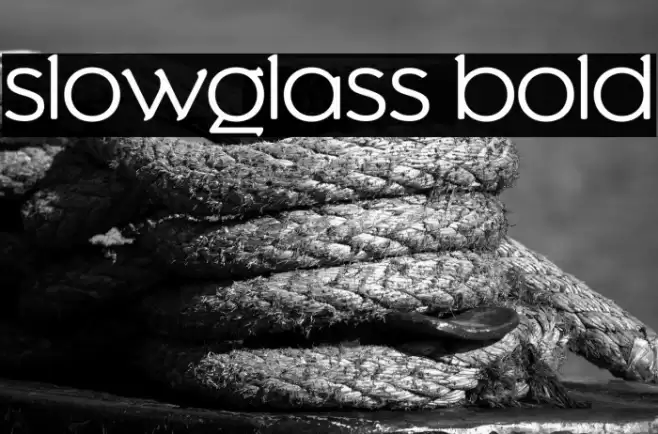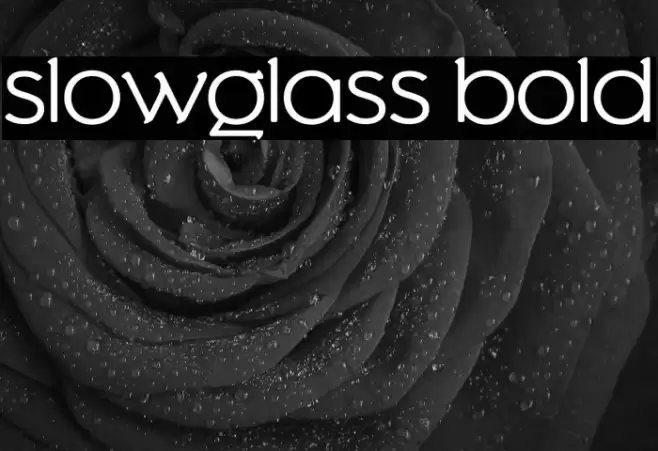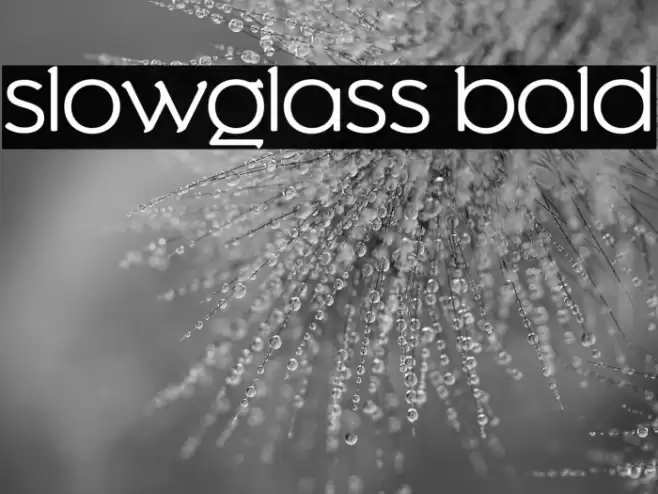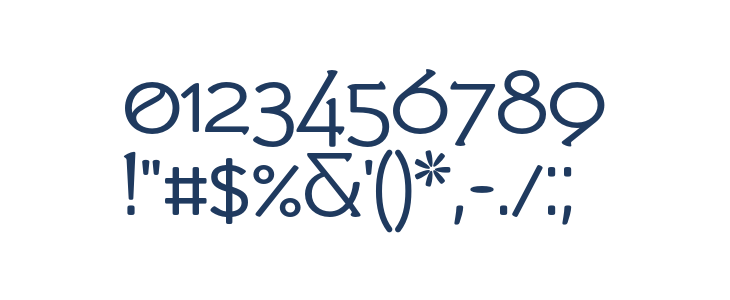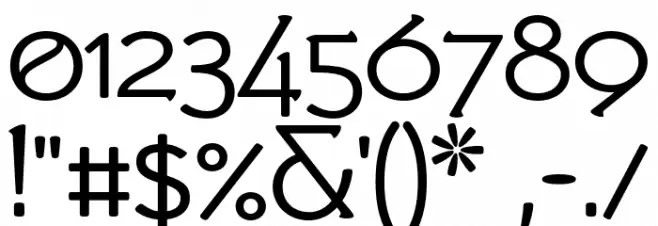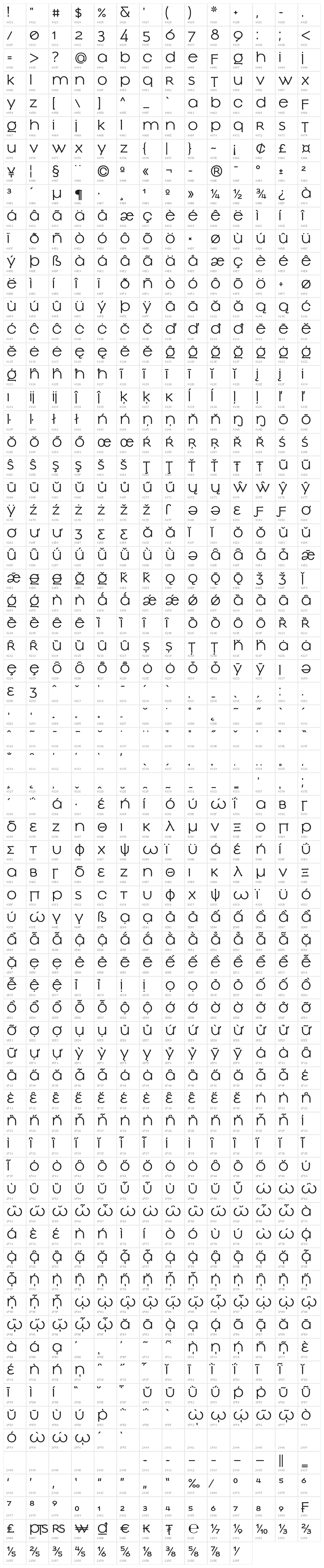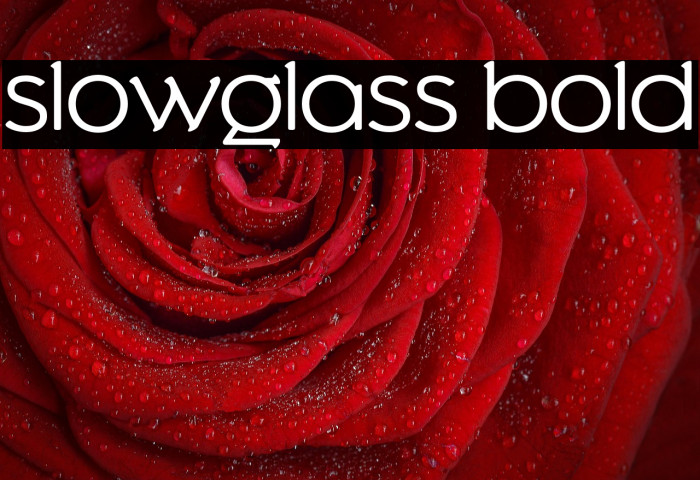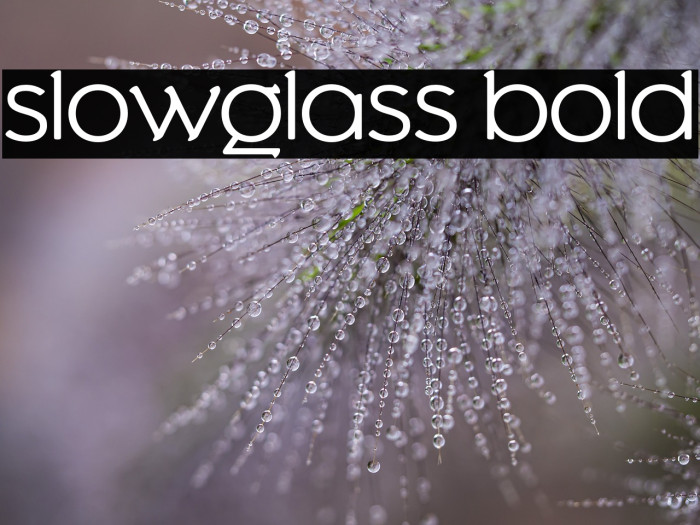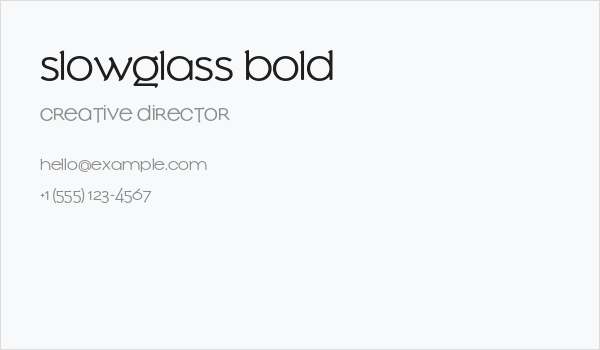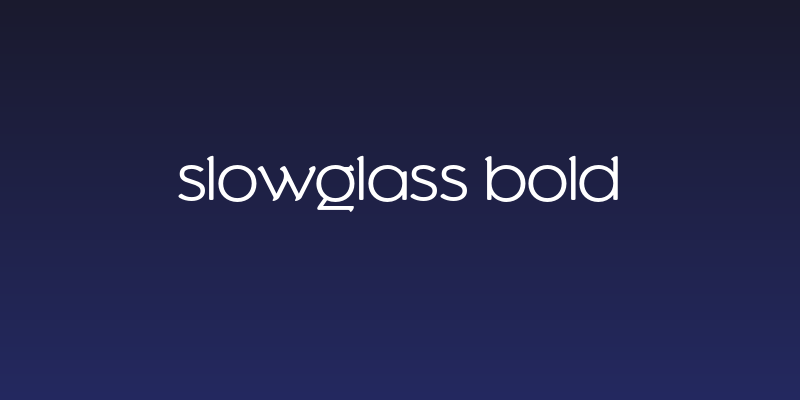
Slowglass Bold Font
Slowglass Bold Description
This font features a unique and modern design with a geometric and slightly futuristic aesthetic. The characters are rounded and smooth, with a consistent stroke width that gives it a clean and polished appearance. The uppercase and lowercase letters maintain a uniform style, with subtle variations that add character and interest. The numerals are distinct and easy to read, while the special characters complement the overall design. This font's style is both contemporary and versatile, making it suitable for a variety of design applications.
A modern, geometric font with a smooth, consistent stroke width from Regular fonts.
- Font: Slowglass Bold
- Proposed Projects: Ideal for branding, digital media, advertising, and editorial design projects.
- Use Case: Headlines, Logos, Digital media